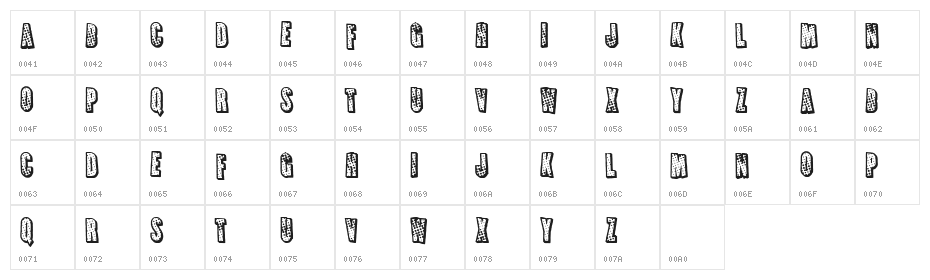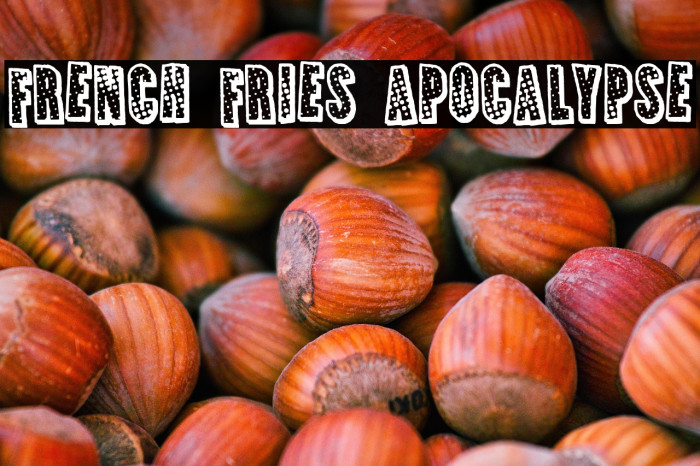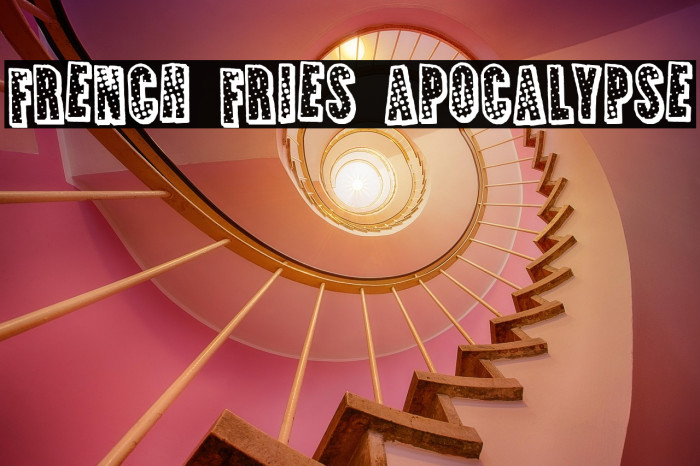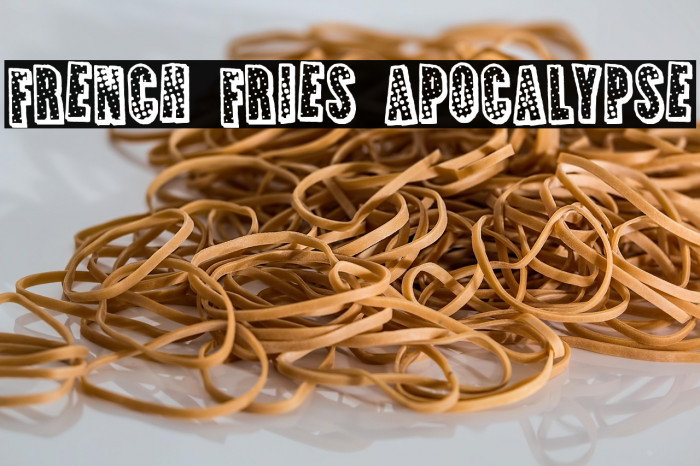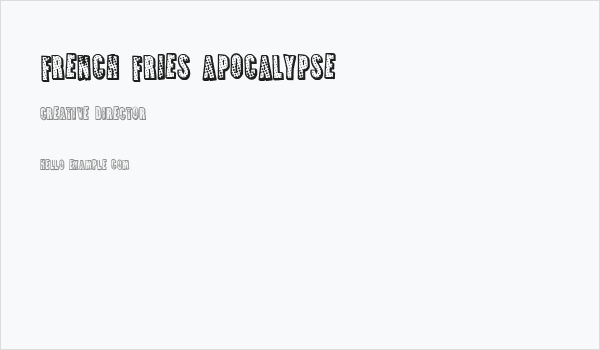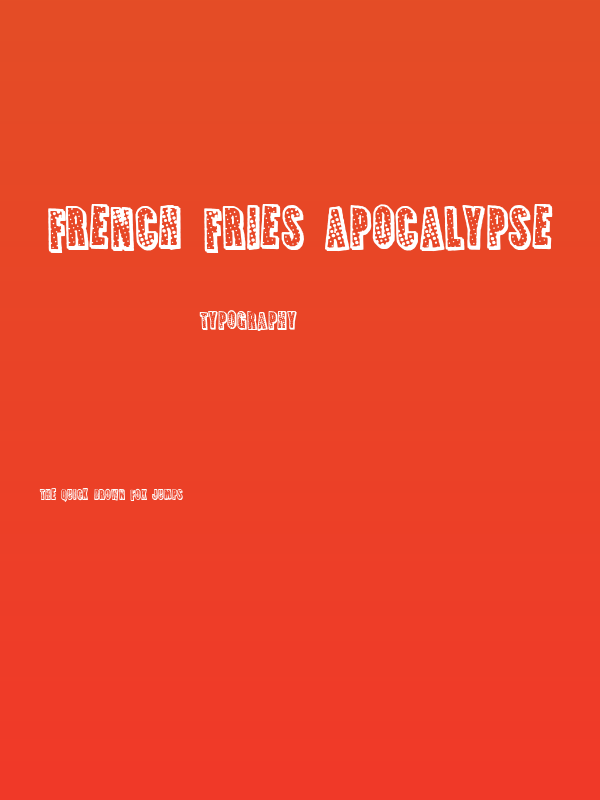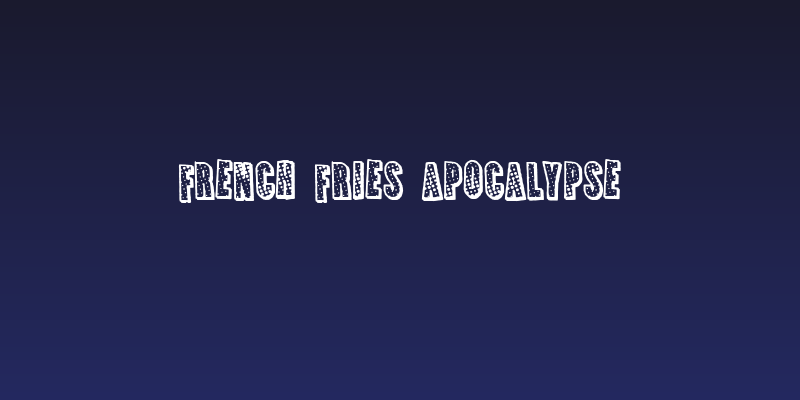
French Fries Apocalypse Font
| Stile generale | Playful, Cartoonish, Modern |
| Progetti proposti | Ideal for comic books, children's books, playful branding, posters, and party invitations. |